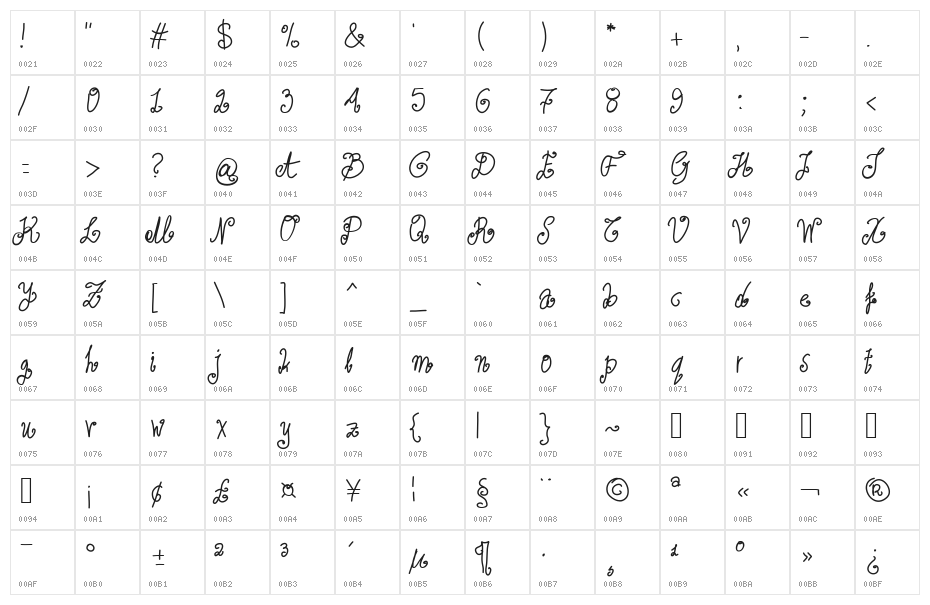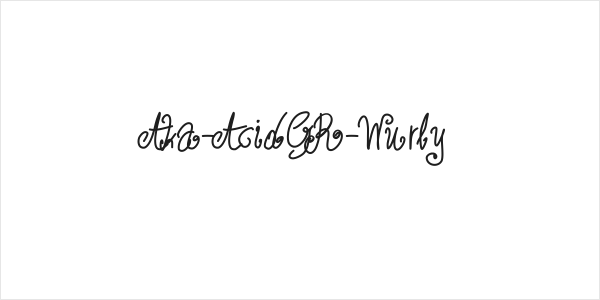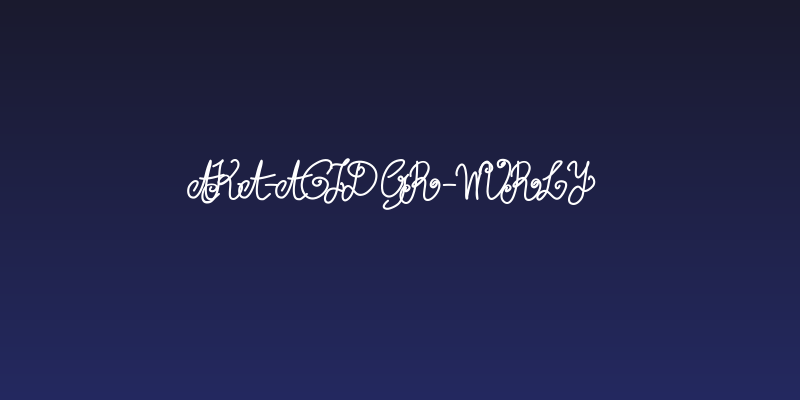
Aka-AcidGR-Wurly Font
Aka-AcidGR-Wurly Description
This font features a playful and whimsical script style, characterized by its curly and looping letterforms. The uppercase letters are bold and expressive, with a consistent flow that adds a sense of movement and energy. The lowercase letters maintain the same playful aesthetic, with unique curls and loops that give each character a distinct personality. The numerals are equally dynamic, featuring the same curly design that ties the entire font together. Special characters are designed with the same attention to detail, ensuring a cohesive look across all glyphs. This font is perfect for projects that require a fun and lively touch, such as children's books, playful branding, or creative invitations.
| Proposed Projects | Ideal for children's books, playful branding, creative invitations, and artistic projects. |